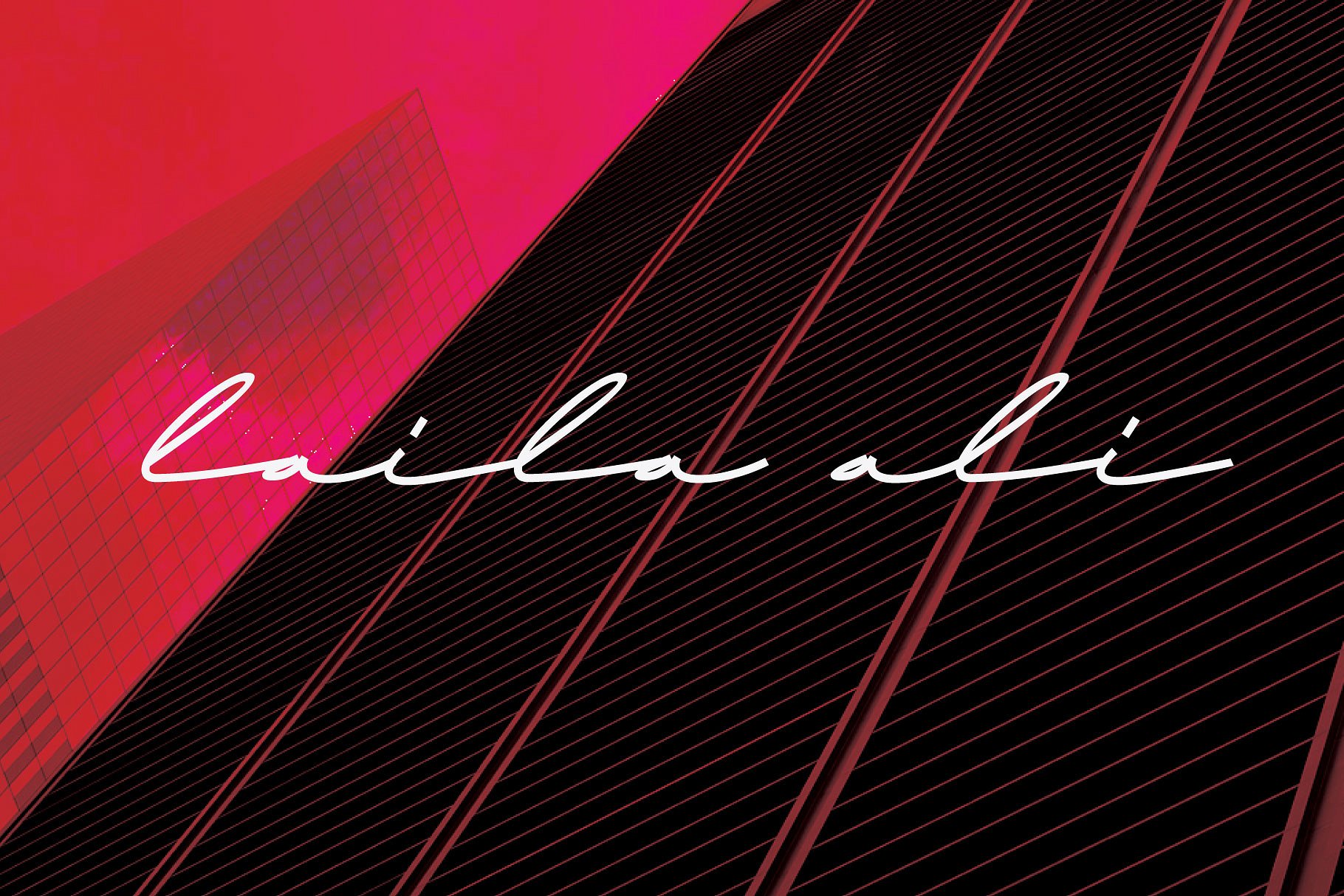
laila ali
laila ali Script Font
introducing laila ali, low script font, all connected lower case. simple clean and beautifull. suitable for logotype, branding, magazine, fashion, signature watermark, poster etc.